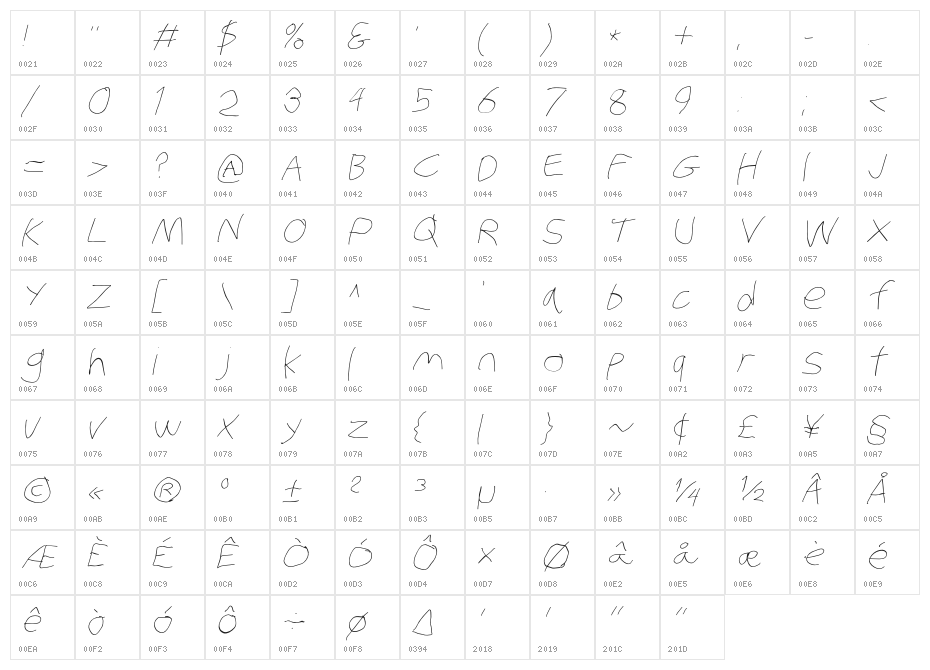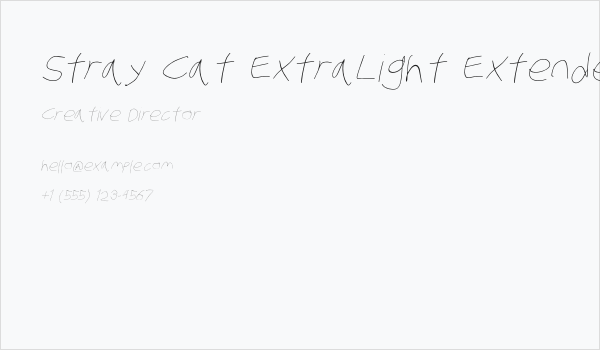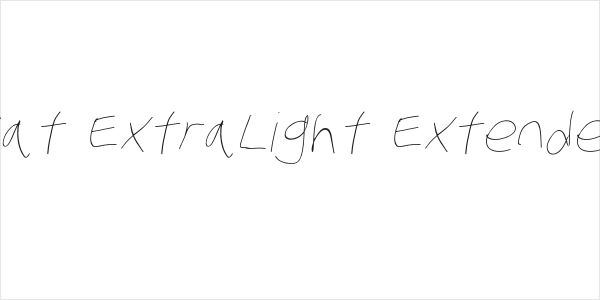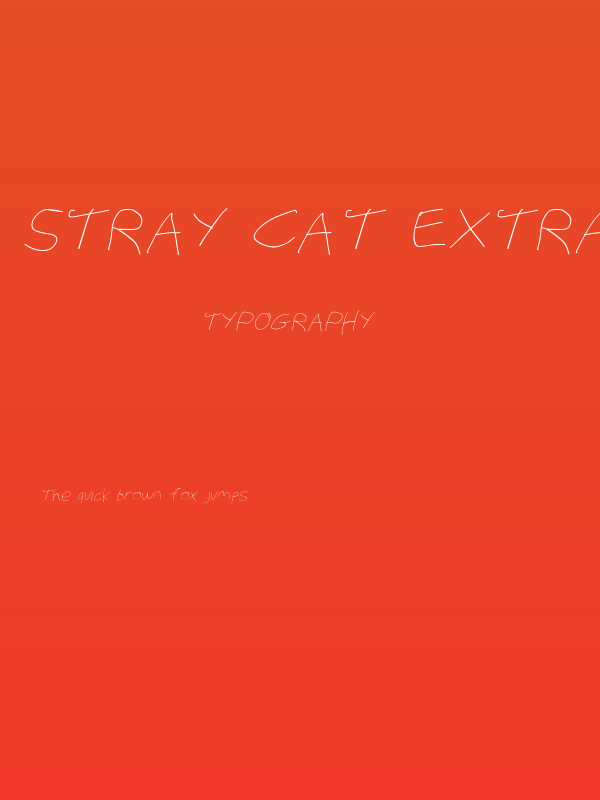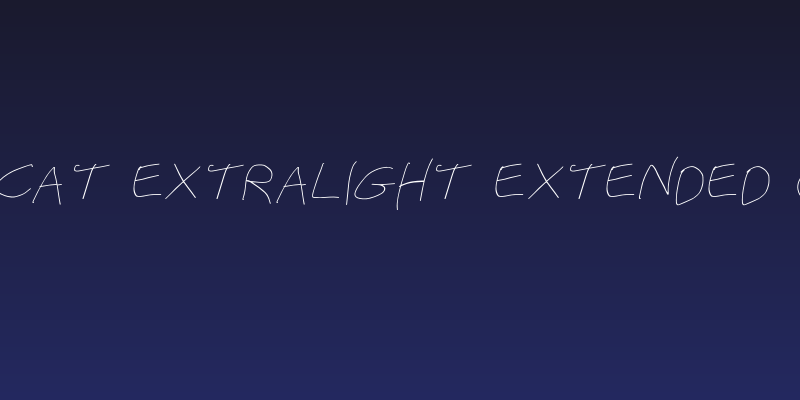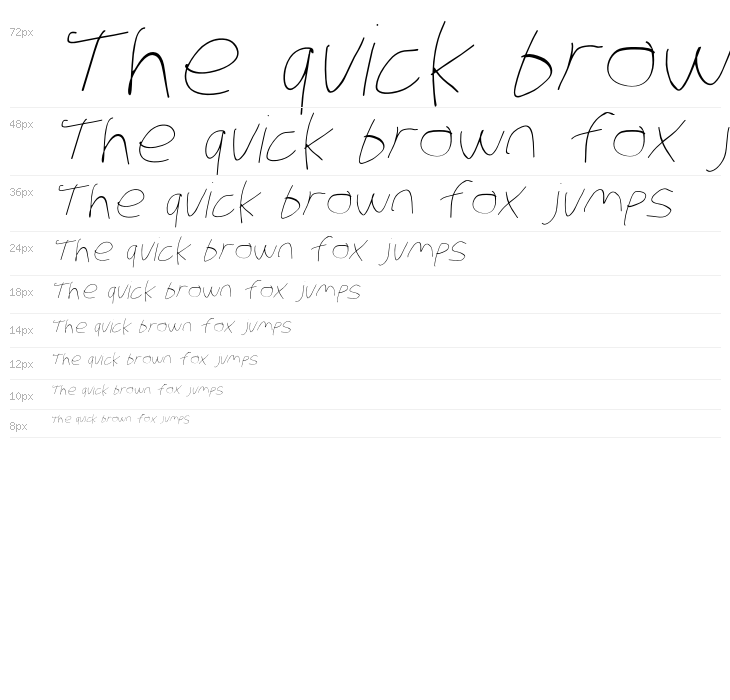
Stray Cat ExtraLight Extended Oblique Font
Stray Cat ExtraLight Extended Oblique Description
This font features a playful and casual handwritten style with an oblique slant, giving it a dynamic and informal appearance. The strokes are thin and consistent, contributing to its extra light weight. The extended width of the characters provides a spacious feel, enhancing readability while maintaining a relaxed aesthetic. The uppercase and lowercase letters are distinct and slightly whimsical, with a natural flow that mimics authentic handwriting. Numbers and special characters follow the same style, ensuring uniformity across all glyphs. This font is ideal for projects that require a personal touch or a creative flair.
| Proposed Projects | Ideal for greeting cards, personal blogs, casual invitations, and creative branding. |